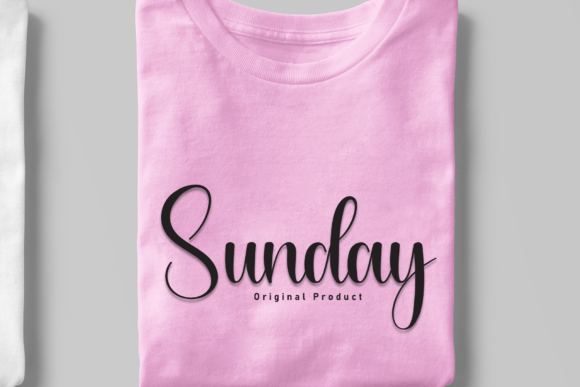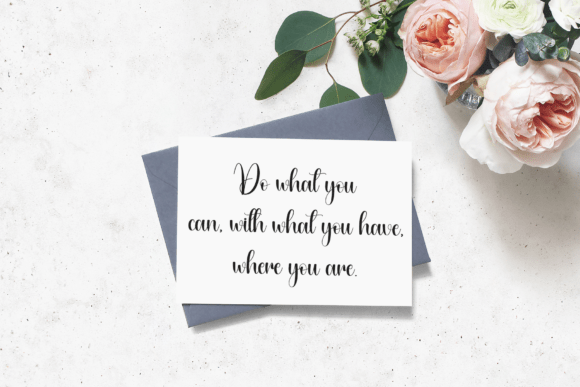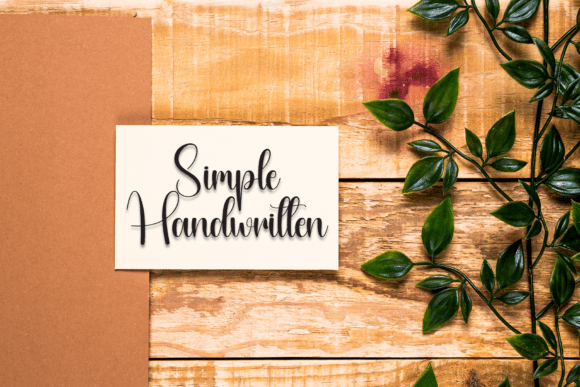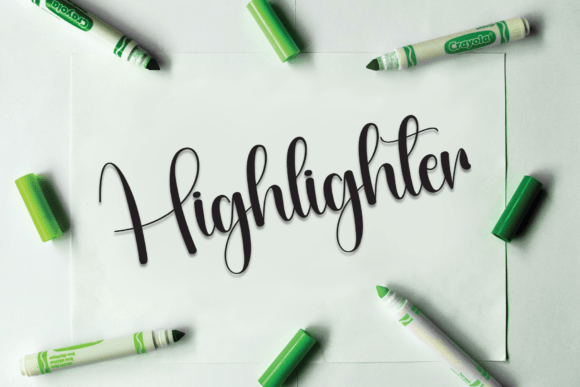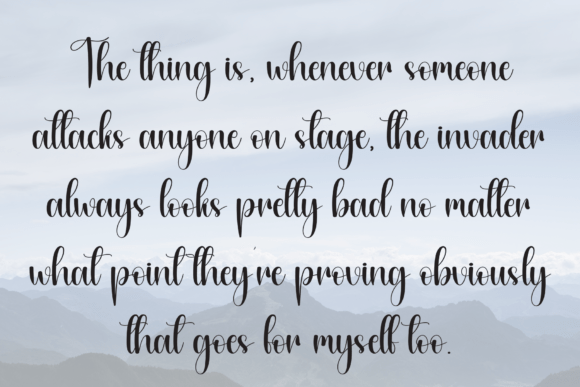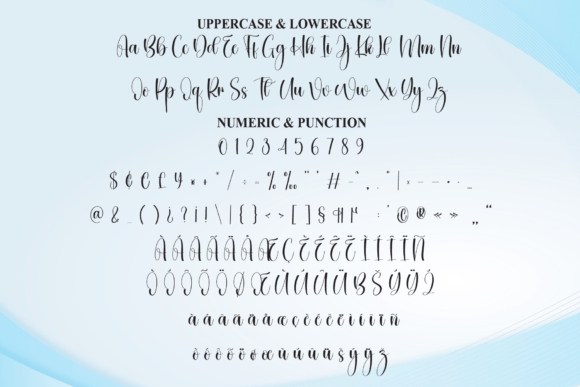
Introducing Brithon Font: The Ultimate Playful Typeface for Creative Designs
Are you tired of using the same old fonts for your designs? Look no further! Brithon Font is here to inject a dose of fun and creativity into your projects. This delightful font is perfect for designers and crafters who want to add a touch of playfulness and whimsy to their work.
The Characteristics of Brithon Font
Brithon Font is a hand-drawn typeface that boasts bouncy letterforms and a charming, irregular texture. Its unique and quirky design makes it stand out from more traditional fonts, adding a lighthearted and cheerful vibe to any project. The font’s playful nature makes it ideal for designs that require a youthful and energetic feel.
Perfect for Kids’ Projects and Party Invites
Brithon Font is a fantastic choice for kids’ projects, party invitations, and other designs that require a fun and lively touch. Imagine creating a colorful and engaging invitation for a child’s birthday party, complete with bouncy letters and playful graphics. This font will help you create a design that’s sure to delight kids and parents alike.
Ideal for Logos and Branding
Brithon Font is not just limited to kids’ projects and party invites. Its playful and creative nature makes it an excellent choice for logos, packaging, and branding designs that require a unique and attention-grabbing style. Whether you’re designing a logo for a children’s toy company or a brand that caters to a young audience, Brithon Font is sure to make your design stand out.
Adding a Touch of Whimsy to Your Designs
One of the best things about Brithon Font is its ability to add a touch of whimsy and imagination to your designs. The font’s hand-drawn charm and irregular texture give it a human feel, making it perfect for designs that require a personal and creative touch. Whether you’re designing a greeting card, a flyer, or a social media graphic, Brithon Font will help you create a design that’s both fun and engaging.
Tips for Using Brithon Font Effectively
To get the most out of Brithon Font, here are a few tips to keep in mind:
- Use it in combination with other playful fonts to create a unique and eye-catching design.
- Don’t be afraid to get creative and try out new and unusual design ideas.
- Use Brithon Font to add a touch of personality to your designs and make them stand out from the crowd.
The Benefits of Using Brithon Font
So why choose Brithon Font for your designs? Here are just a few benefits of using this playful and creative font:
- It’s perfect for designs that require a fun and lighthearted touch.
- It’s ideal for kids’ projects, party invites, logos, and branding designs.
- It’s easy to read and understand, making it perfect for designs that require clear communication.
- It’s versatile and can be used in a variety of design contexts.
In conclusion, Brithon Font is a playful and creative typeface that’s perfect for designers and crafters who want to add a touch of fun and whimsy to their designs. Its bouncy letterforms, hand-drawn charm, and irregular texture make it an excellent choice for kids’ projects, party invites, logos, packaging, and branding designs. So why not give Brithon Font a try and see how it can help you create designs that radiate joy and imagination?